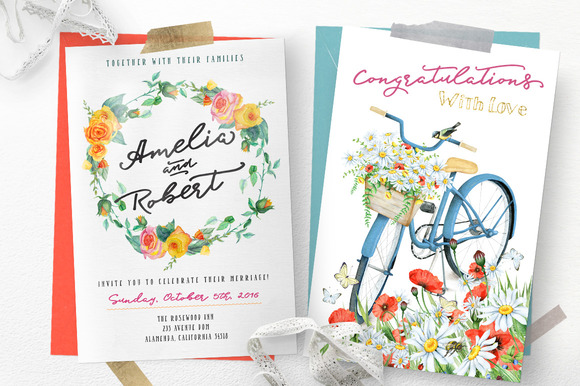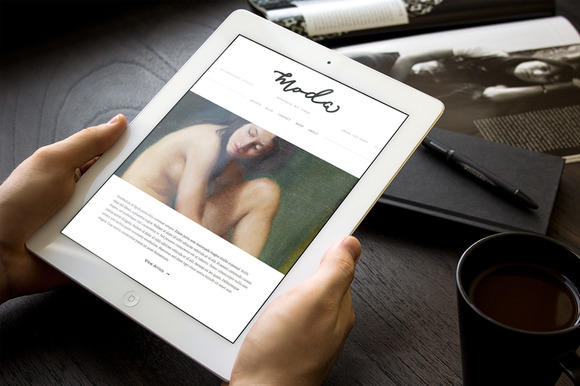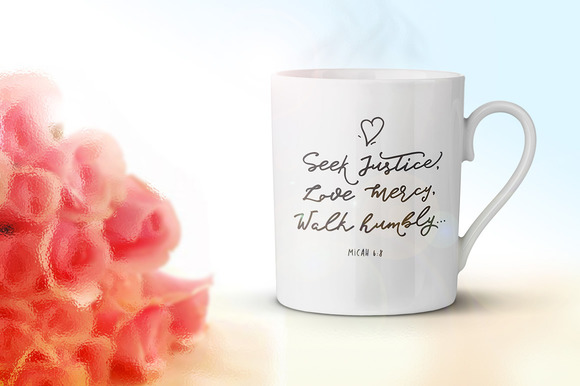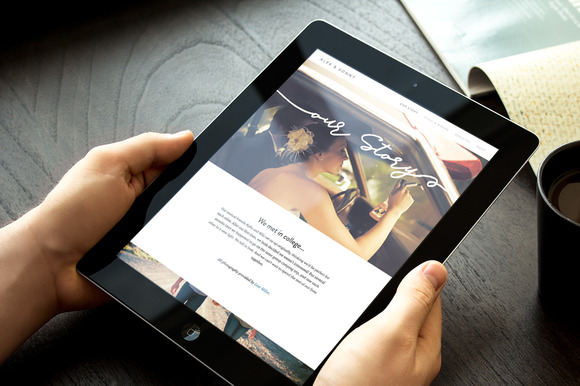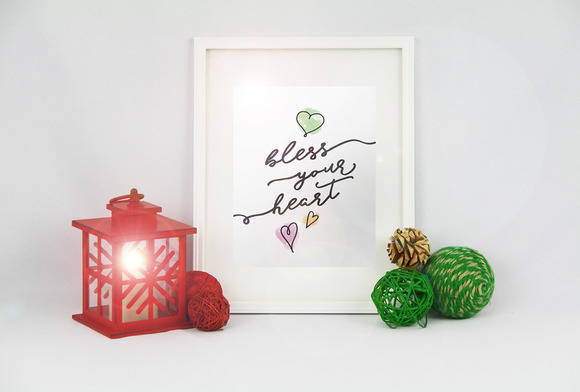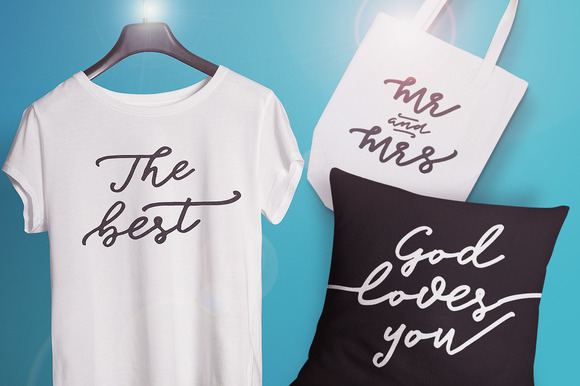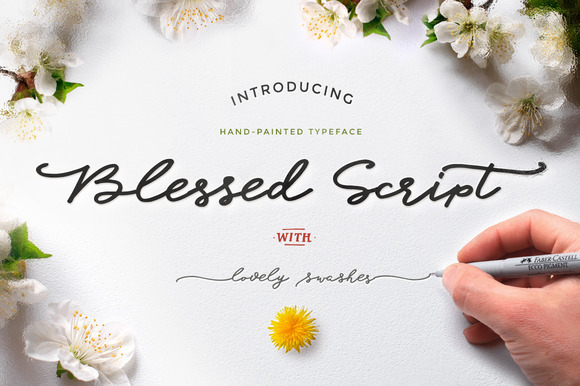
Discover the Versatility of Blessed Script Font: Elevate Your Designs with Elegance and Whimsy
In the realm of typography, few fonts manage to strike a balance between elegance, modernity, and playfulness. The Blessed Script Font, however, achieves this delicate equilibrium with remarkable finesse. This versatile font family is designed to cater to a wide range of design needs, making it an indispensable asset for designers and crafters alike. In this article, we will delve into the unique features of the Blessed Script Font, exploring its potential to transform your creative projects.
A Trio of Timeless Font Styles
The Blessed Script Font family is not just a single font; it’s a comprehensive collection that includes three distinct handwritten styles: Blessed, Appetite, and Manaliga. Each style brings its own unique character to the table, offering designers the flexibility to choose the perfect fit for their projects.
- Blessed: A romantic script that exudes elegance and sophistication. Its fluid strokes and beautiful ligatures make it ideal for designs that require a touch of luxury and refinement.
- Appetite: A handwritten sans serif that embodies a more casual and modern vibe. This style is perfect for projects that need a friendly, approachable feel without compromising on readability.
- Manaliga: A handwritten serif that adds a classic touch to any design. With its subtle serifs, Manaliga brings a sense of tradition and reliability, making it suitable for more formal or vintage-inspired projects.
An Extensive Collection of Hand-Sketched Vector Illustrations
What sets the Blessed Script Font apart from other font families is its inclusion of over 215 beautiful hand-sketched vector illustrations. This vast collection allows designers to add an extra layer of creativity and personality to their work. From simple icons to elaborate illustrations, the possibilities are endless. Whether you’re designing for digital platforms, print materials, or merchandise, these illustrations provide the perfect complement to the font styles.
Ideal for a Wide Range of Projects
The versatility of the Blessed Script Font makes it an excellent choice for various design projects, including:
- Branding and Logo Design: Create memorable and impactful logos with the font’s elegant and modern styles.
- Stationery and Invitations: Add a personal touch to your stationery, invitations, and greeting cards with the romantic script or casual sans serif.
- Web Design: Enhance your website’s aesthetic with a modern and responsive typography that adapts to any screen size.
- Social Media Graphics: Stand out on social media platforms with eye-catching graphics and typography.
- Packaging and Merchandise: Elevate your product packaging and merchandise design with unique and engaging visuals.
Why Choose Blessed Script Font?
With so many fonts available, why should you choose Blessed Script Font for your next project? Here are a few compelling reasons:
- Uniqueness: The combination of three distinct font styles and an extensive collection of illustrations ensures your designs will stand out.
- Flexibility: Whether you’re aiming for a modern, casual look or a more traditional, elegant feel, Blessed Script Font has got you covered.
- Quality: As a hand-sketched font family, Blessed offers a level of craftsmanship and attention to detail that’s hard to find in digital fonts.
| Author | Blessed Print |
The Blessed Script Font is more than just a font; it’s a comprehensive design solution that can elevate your creative projects to new heights. With its trio of timeless font styles and extensive collection of hand-sketched vector illustrations, it offers the versatility and quality that designers and crafters demand. Whether you’re working on a branding project, website design, or crafting unique merchandise, Blessed Script Font is an invaluable resource that will help you achieve your design goals with elegance and whimsy.